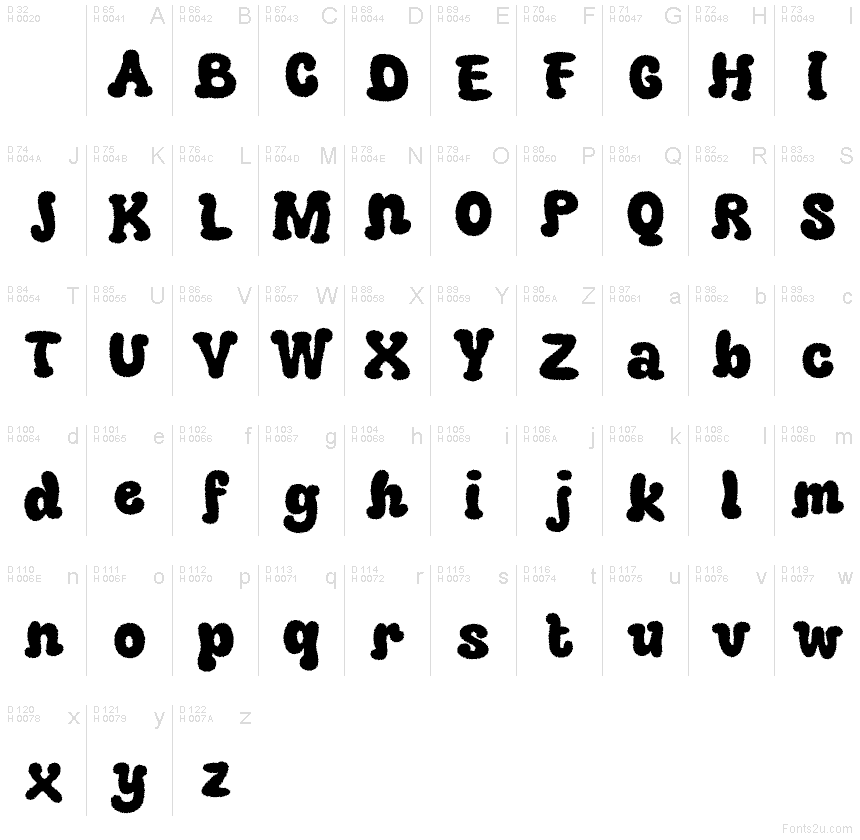
Radey Rough Regular Demo
Radey Rough font is a playful and lively display font crafted by Craft Supply Co. The eroded and cartoonish style of this friendly typeface offers harmony within the roughened textures, rounded corners, and condensed curvy nature of the characters. While bold in presence, this free display font carries a whimsical charm that grabs your audience’s attention immediately.
Typical use cases would include children’s book covers, comics posters, album covers designs, and movie titles for both kids-oriented or retro-themed projects. Also fit for branding purposes such as logo design and packaging design; consider using Radey Rough for large-scale ad banners that need to stand out.